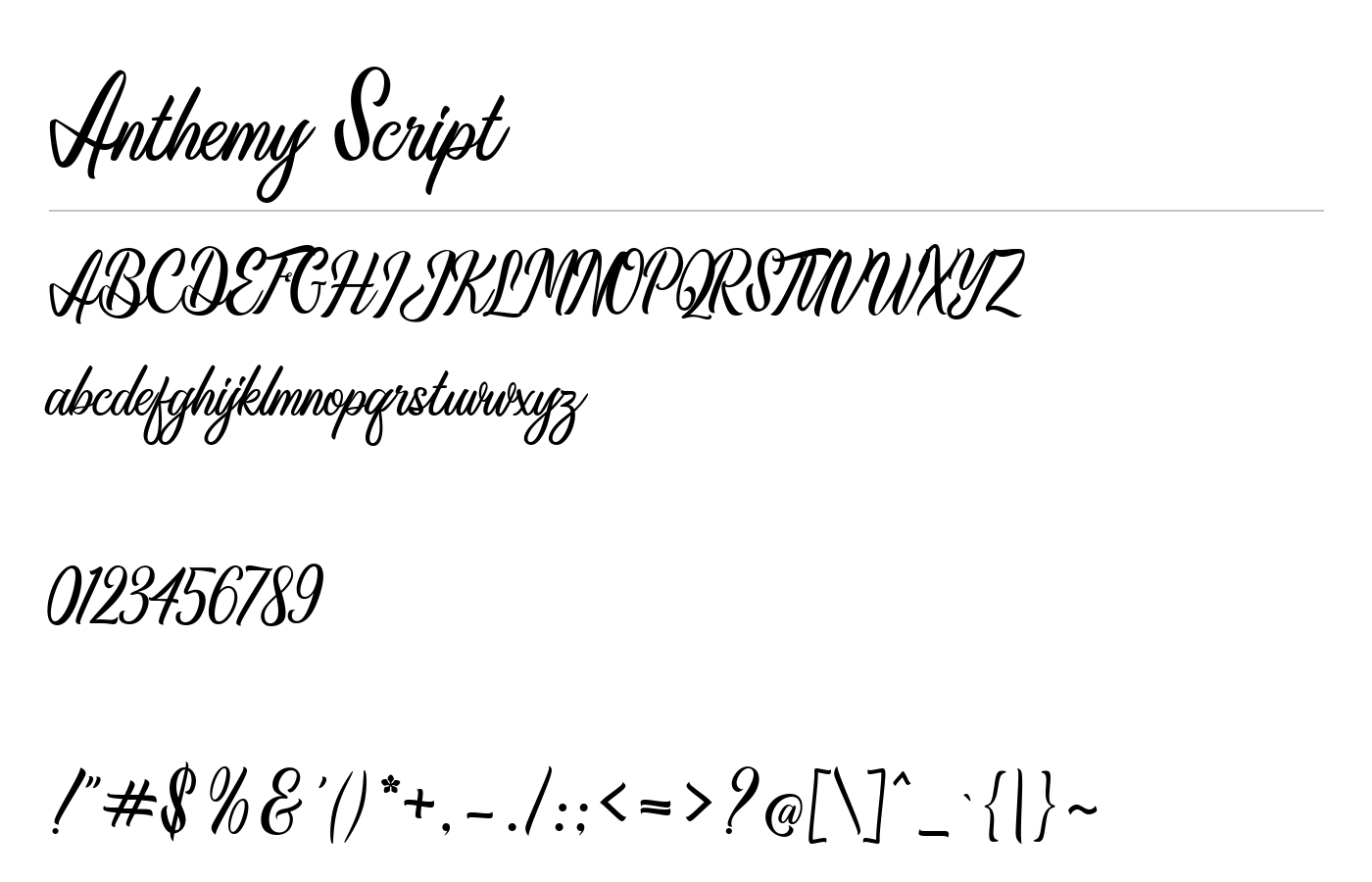
Anthemy Script is an elegant, flowing script font characterized by its smooth, slightly condensed letterforms and moderate stroke contrast, giving it a refined yet approachable feel. With its graceful uppercase and lowercase characters featuring delicate curves and subtle flourishes, this font is perfect for stylish invitations, branding, and headlines that crave a touch of sophistication and personality. Its classic script style makes it well-suited for fashion, luxury, and creative projects seeking a warm, handcrafted charm.
Anthemy Script Font
About Anthemy Script Font